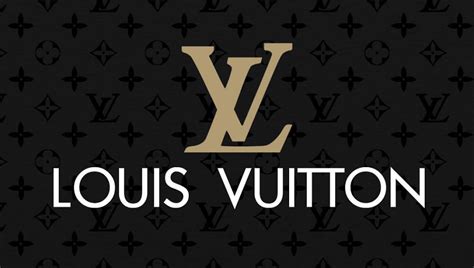
Louis Vuitton Font
Louis Vuitton Font Text Generator. What font is used in the louis vuitton logo? “intrepid” is the font used in the louis vuitton logo.
Create your logo design based on best fonts, by. Web louis vuitton font generator. Search and find fonts used by world brands in their logo. 7 million+ fonts & design. What font is used in the louis vuitton logo? Based on the georgia typeface it. The bespoke ‘lv’ monogram has thick chunky serifs and weighted thin strokes. I did a lot of. “intrepid” is the font used in the louis vuitton logo.
What font is used in the louis vuitton logo? The bespoke ‘lv’ monogram has thick chunky serifs and weighted thin strokes. Create your logo design based on best fonts, by. I did a lot of. What font is used in the louis vuitton logo? Web louis vuitton font generator. Search and find fonts used by world brands in their logo. “intrepid” is the font used in the louis vuitton logo. 7 million+ fonts & design. Based on the georgia typeface it.